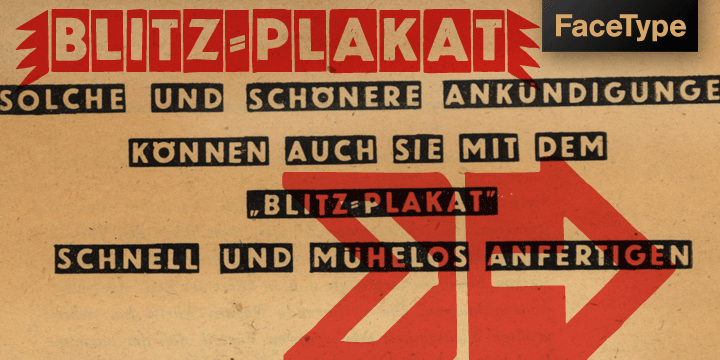
Blitzplakat is a dingbat and display font published by FaceType.
This one is found footage which our friend Dimitris Karaiskos unearthed in an antique shop in vienna.
We digitized it and added more glyphs. Blitzplakat is the name of this pre-letraset-system, where you could make your own little advertising posters bei cutting out these letters and stick them on paper like stamps.